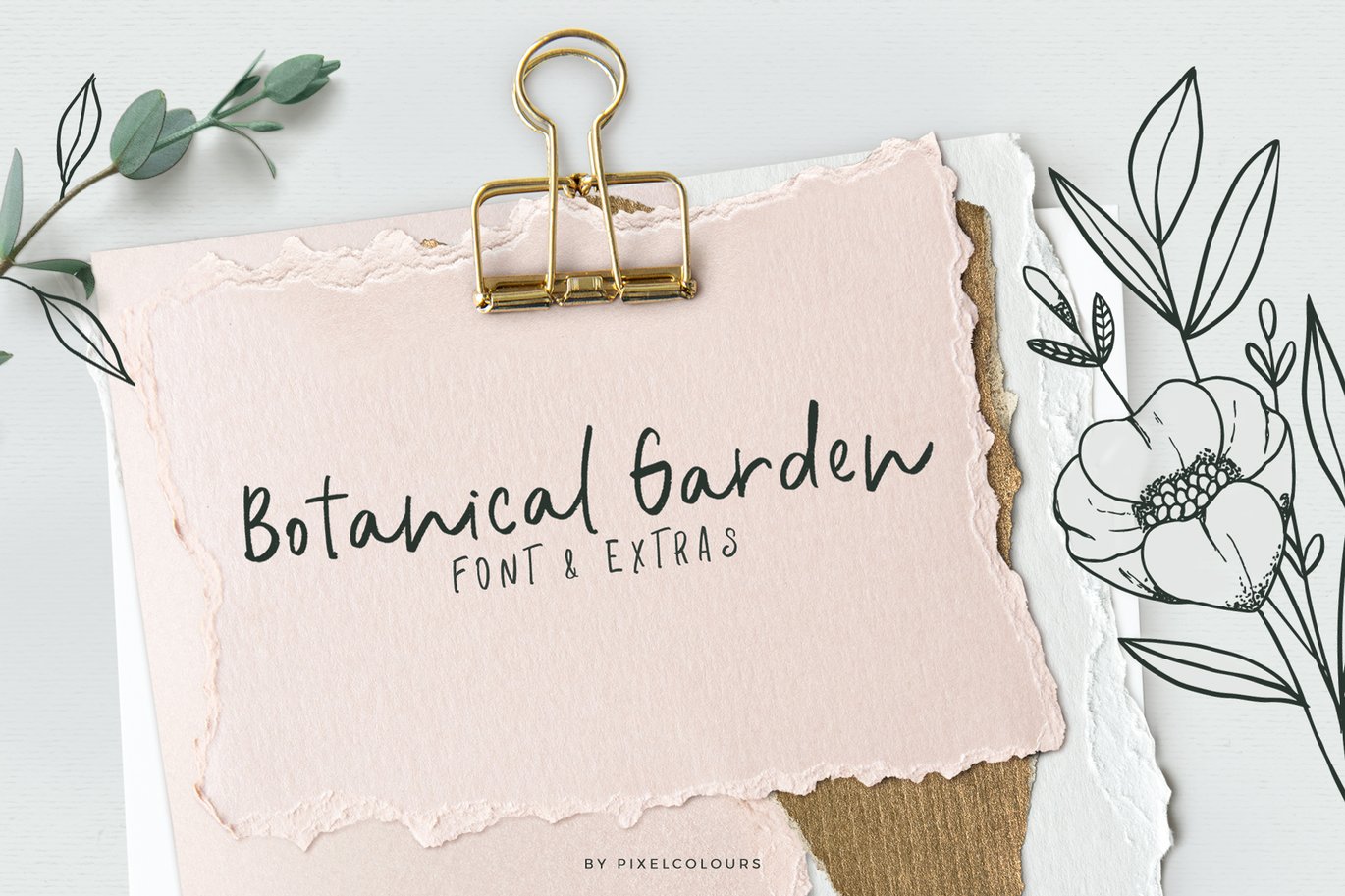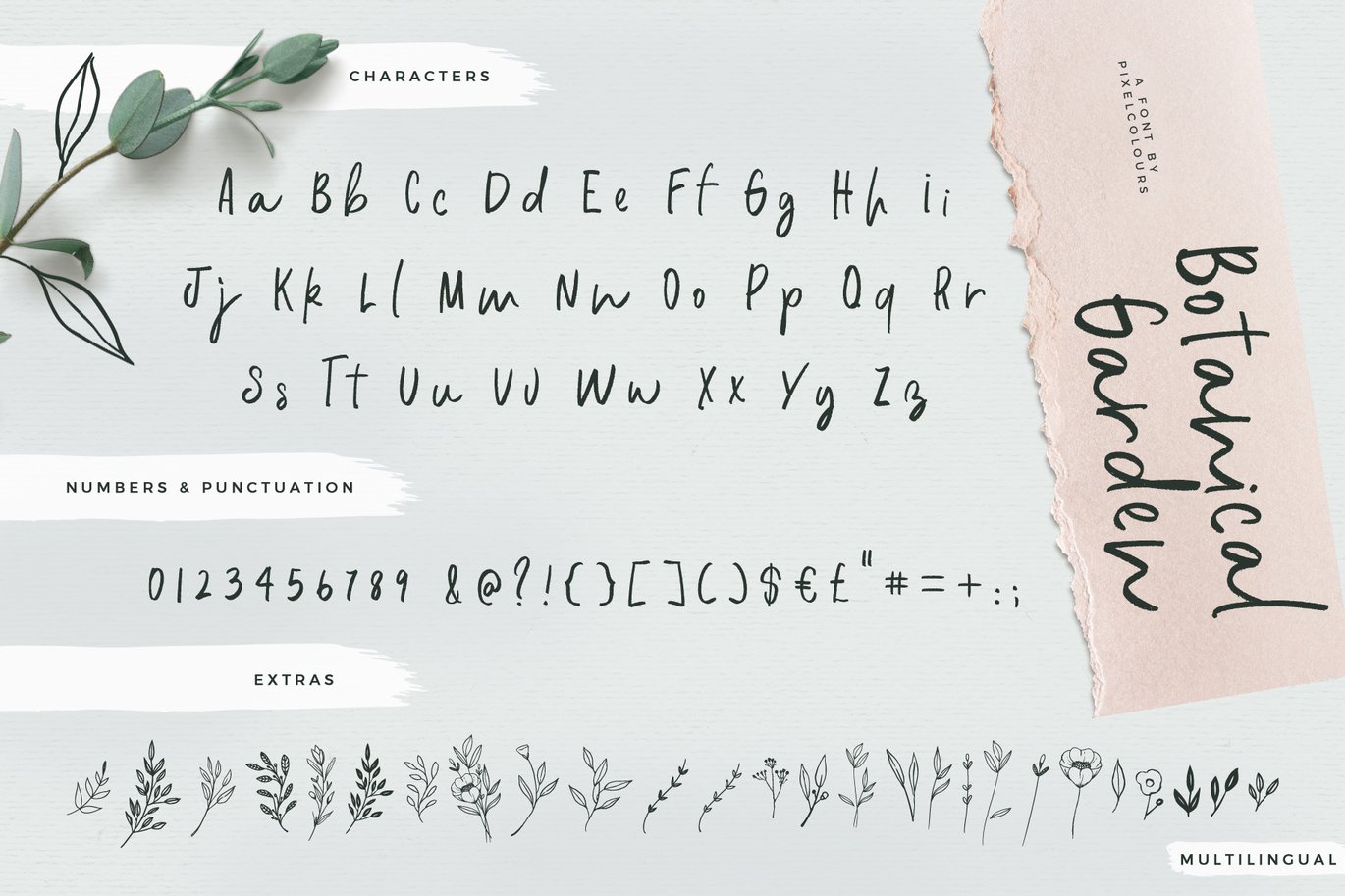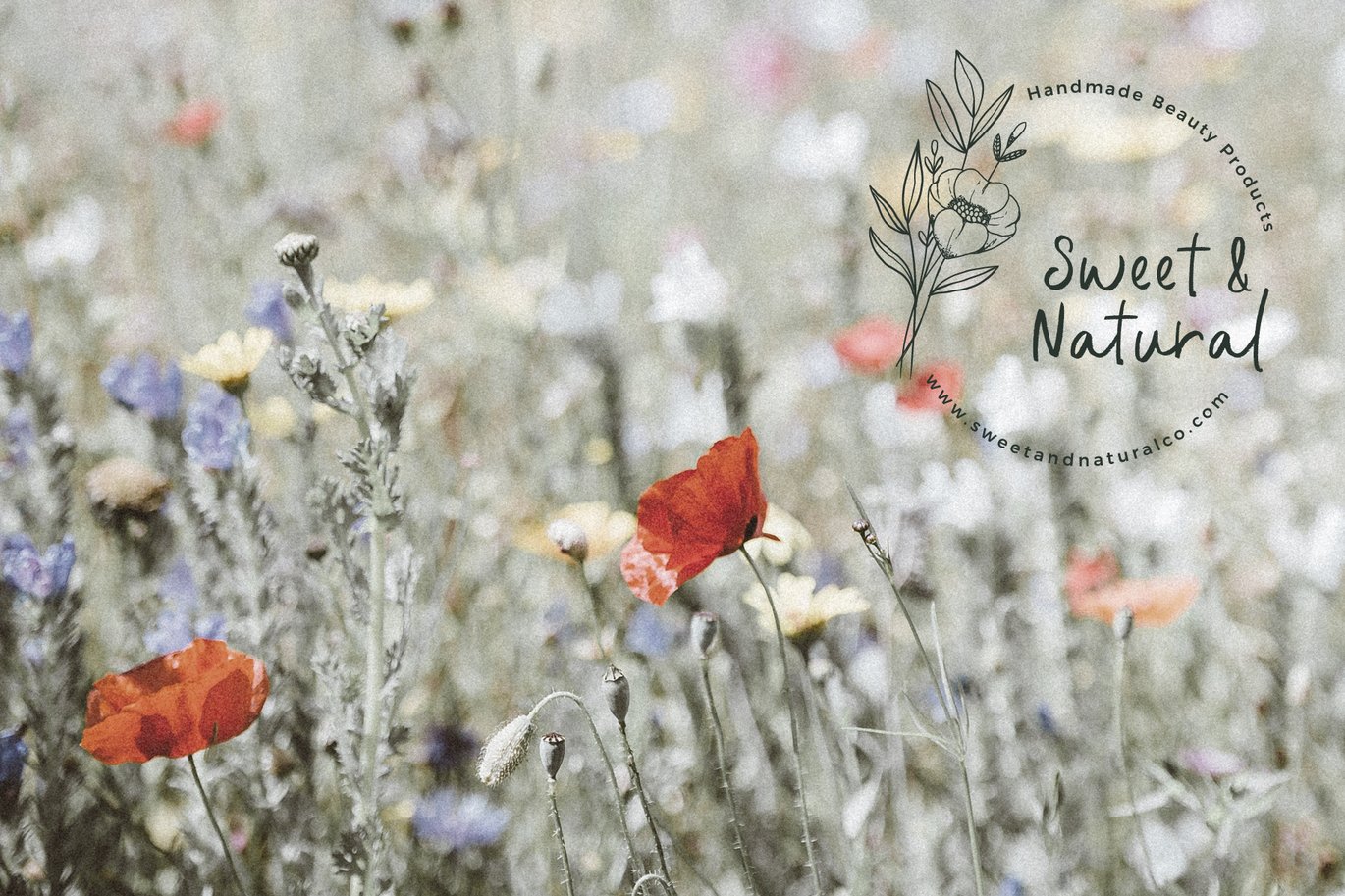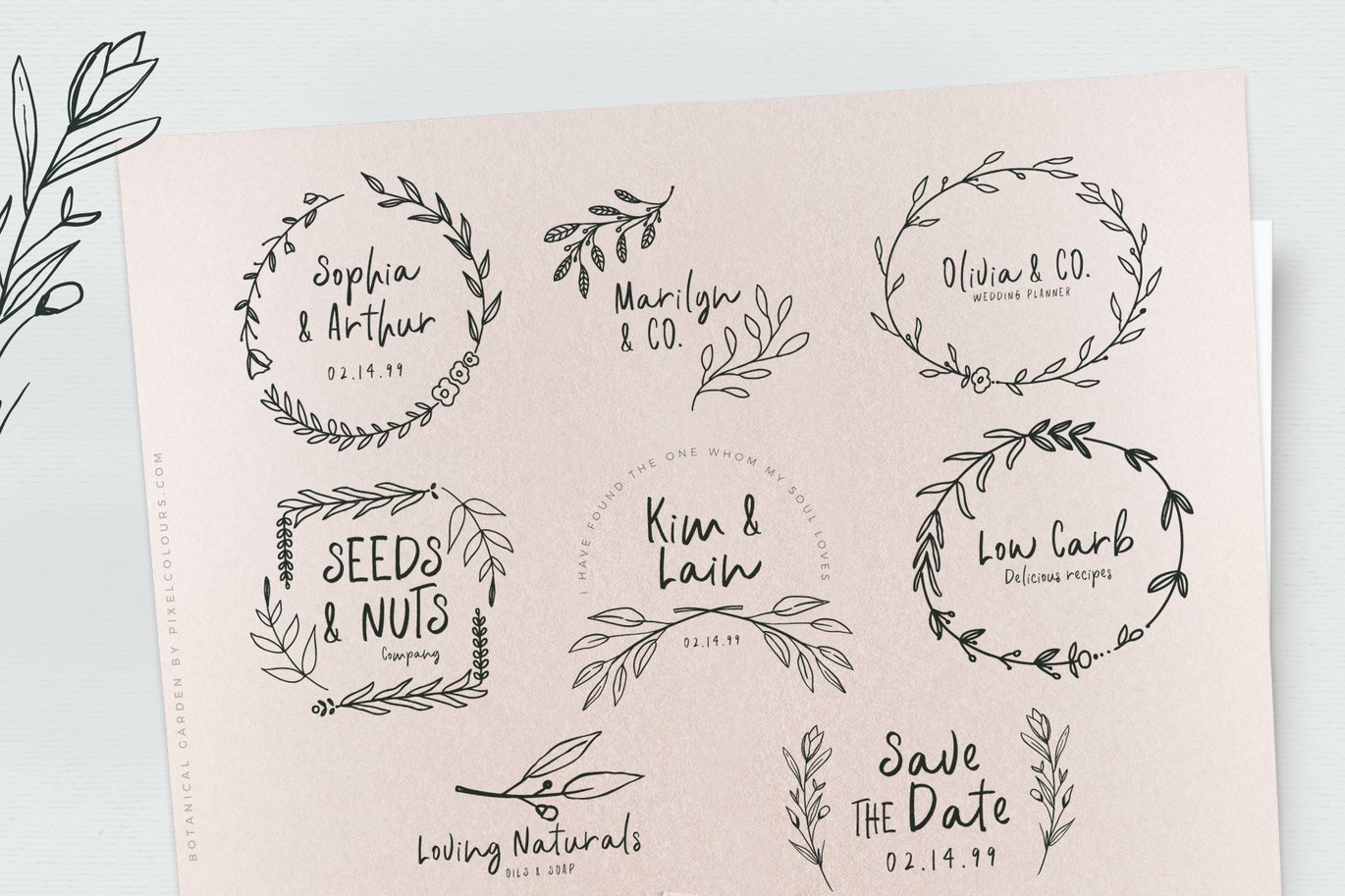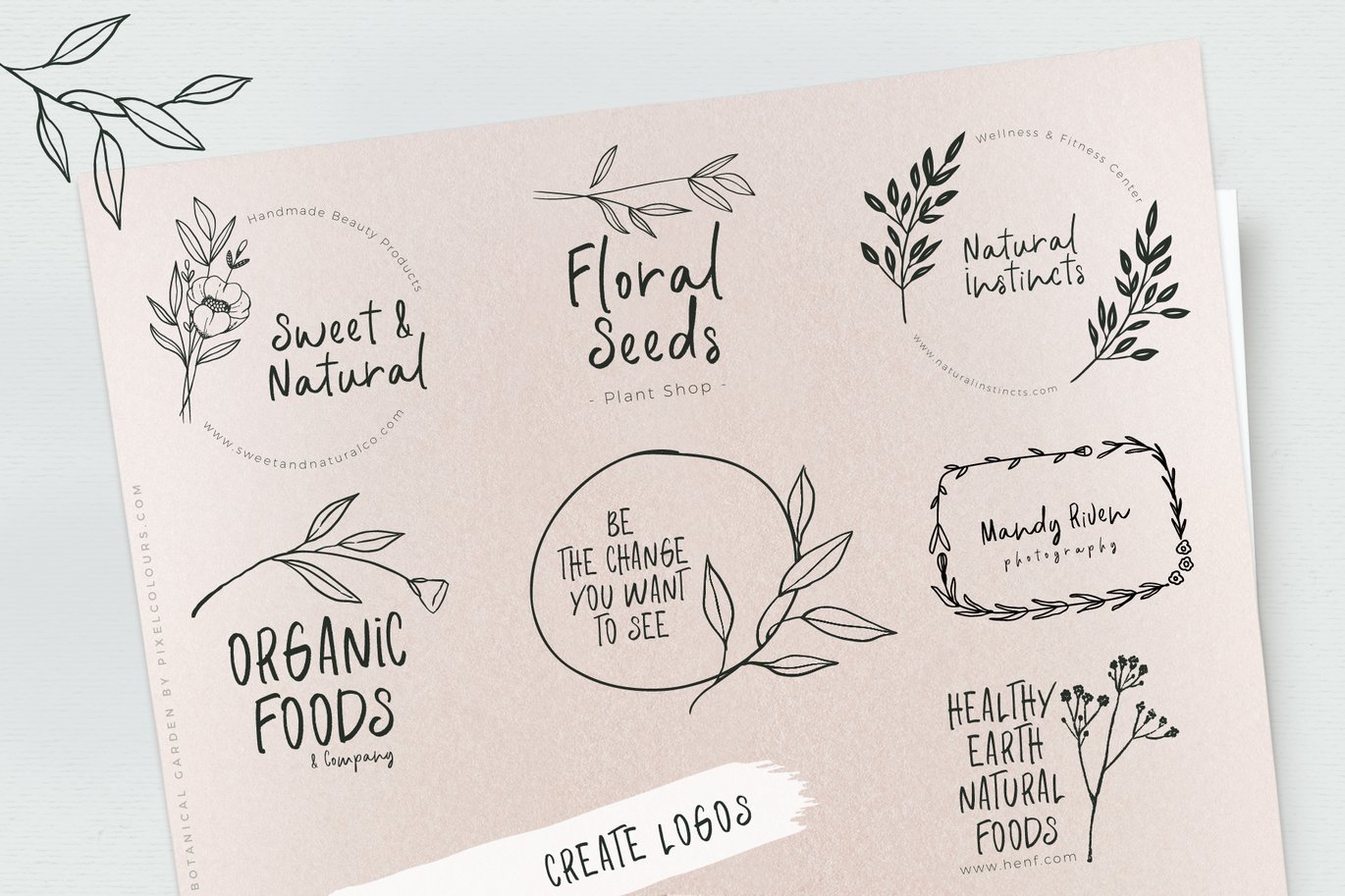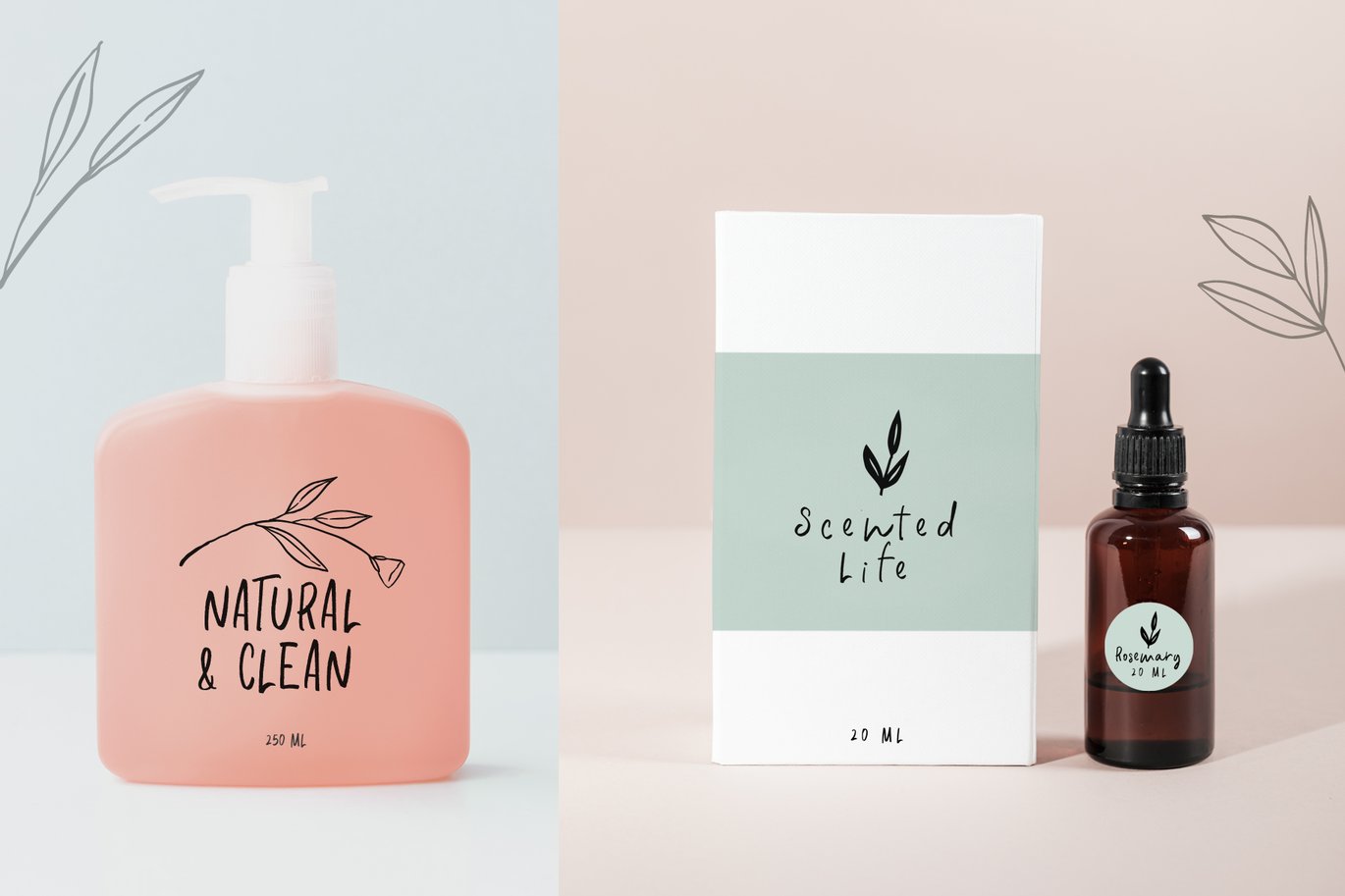
Botanical Script and Decorative Font Duo
A sweet font duo that includes a script font and a decorative font with botanical illustrations great for creating logos, quotes and floral compositions for any project.
Botanical Extras
Create your own compositions or logos from scratch with the Botanical Extras Font with lots of floral doodles!
- Uppercase, lowercase, numbers & punctuation
- Botanical Extras Font